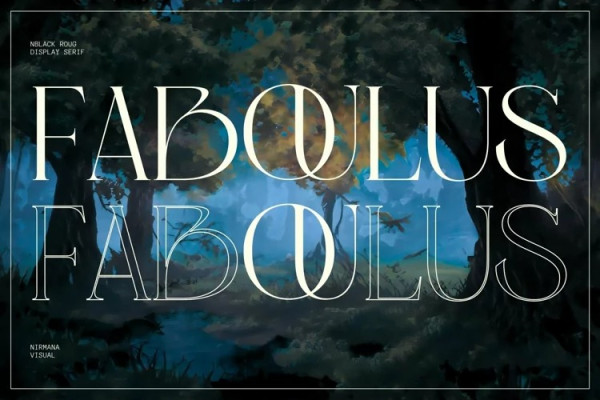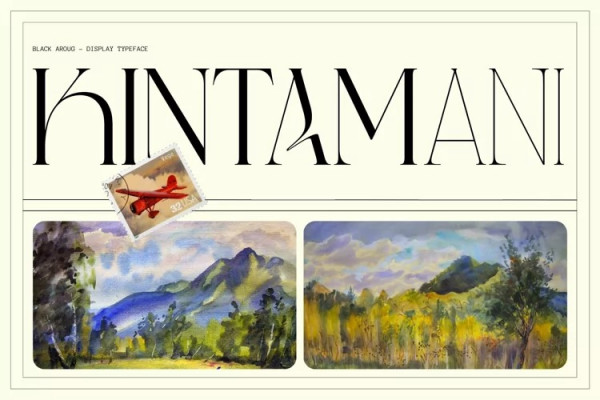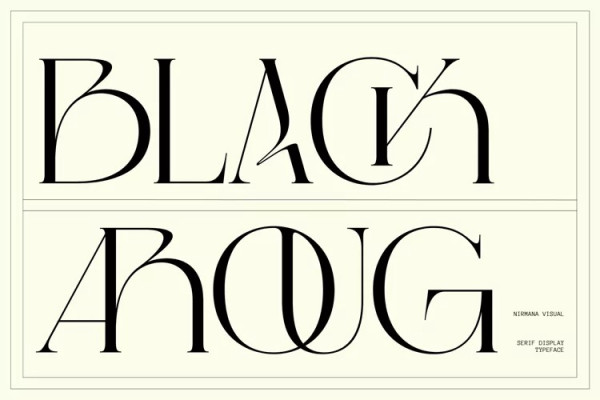
Black Aroug Font
Black Aroug Font offers beautiful typographic harmony for a diversity of design projects, including logos & branding, social media posts, advertisements & product designs.